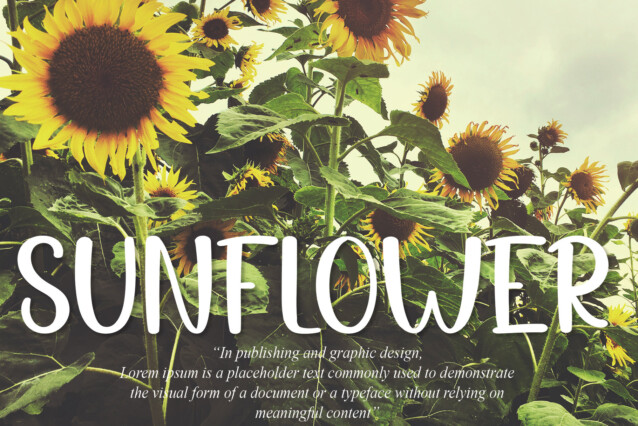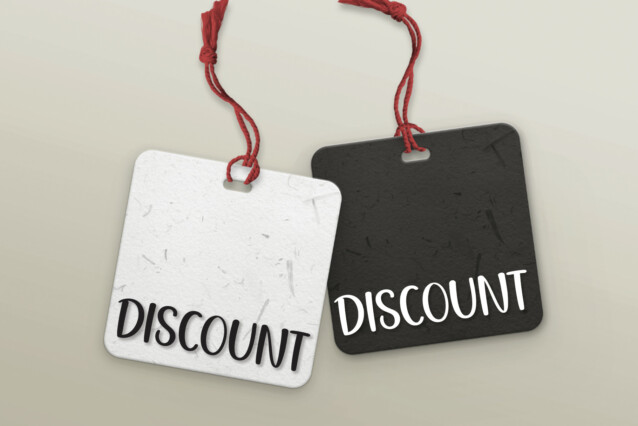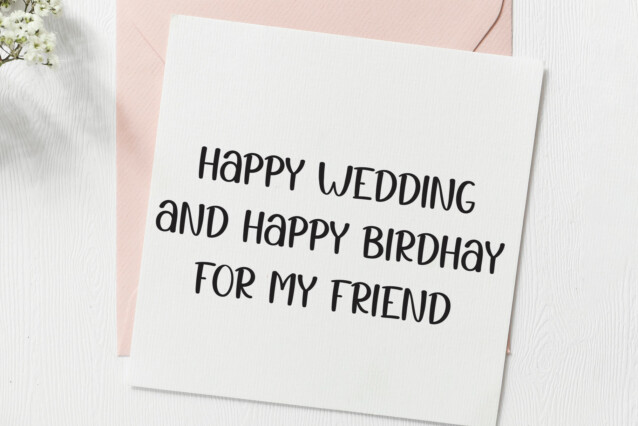
Thank Display Font
Thank Display Font is a beautiful and refined script font. It has a classy, elegant, and modern look, perfectly suitable for logos, branding, invitations, stationery, wedding designs, social media posts, and much more!